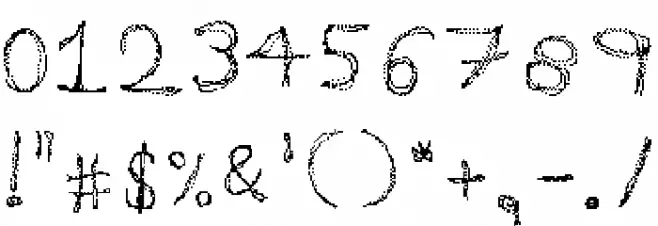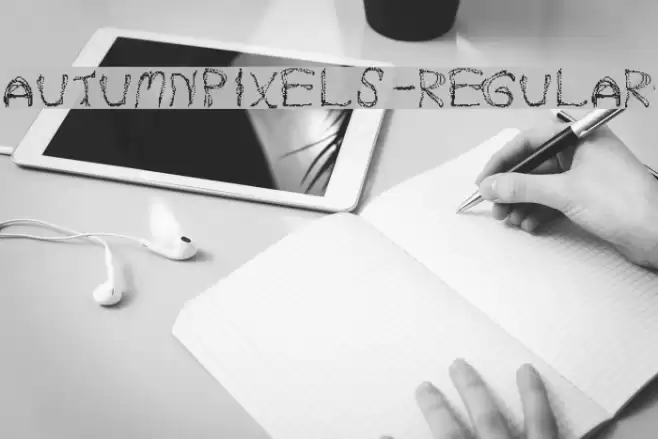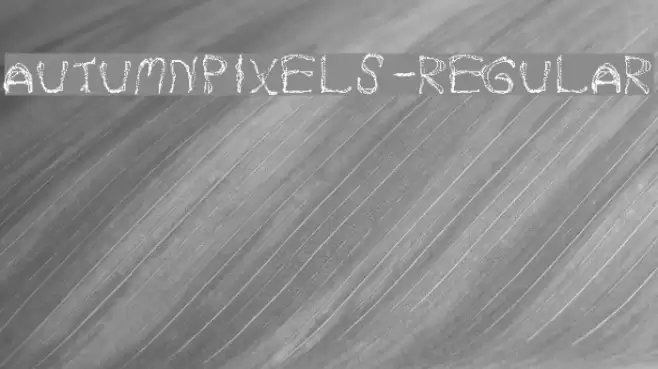
AutumnPixels-Regular Font
AutumnPixels-Regular Description
This font features a playful, hand-drawn style with a pixelated texture that gives it a unique, artistic appearance. The characters are slightly irregular, adding to the whimsical and creative feel. Uppercase and lowercase letters maintain a consistent style, with rounded edges and a casual flow. The numbers and special characters follow the same design, ensuring a cohesive look across all text elements. This font is perfect for projects that require a touch of individuality and charm, making it ideal for creative designs.
A playful, hand-drawn font with a pixelated texture and whimsical style from Uncategorized fonts.
- Proposed Projects: Ideal for children's books, creative posters, digital art, and playful branding.
- Use Case: Headlines, Logos, Creative projects